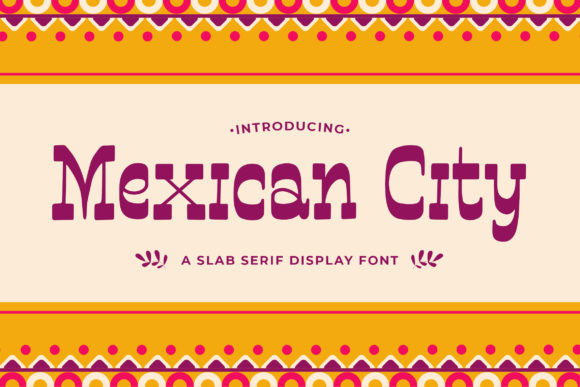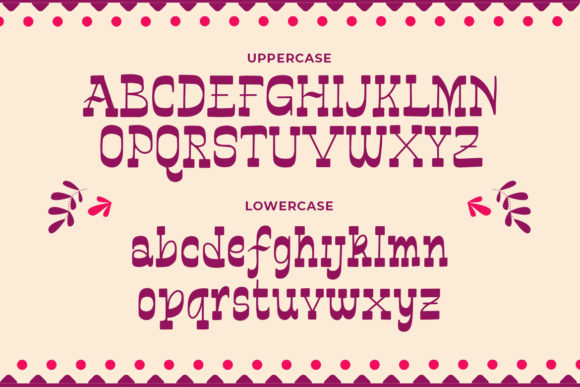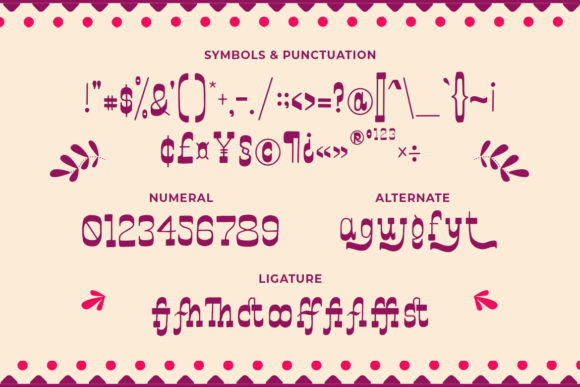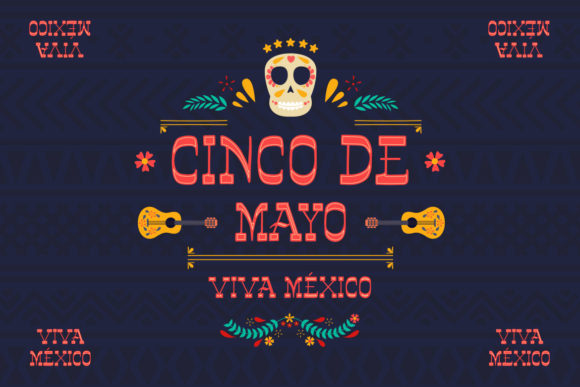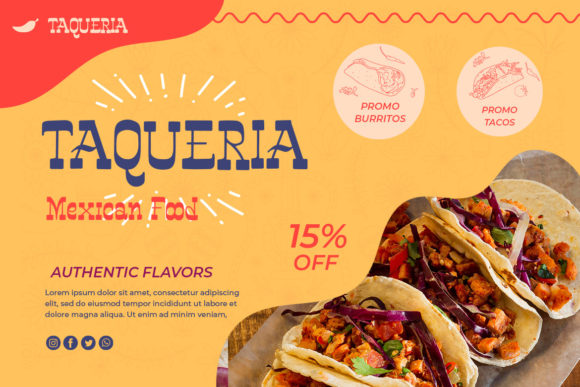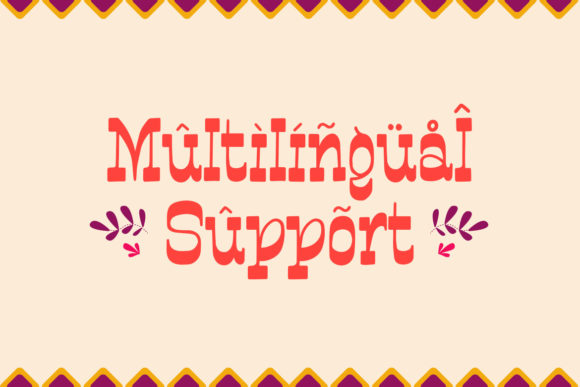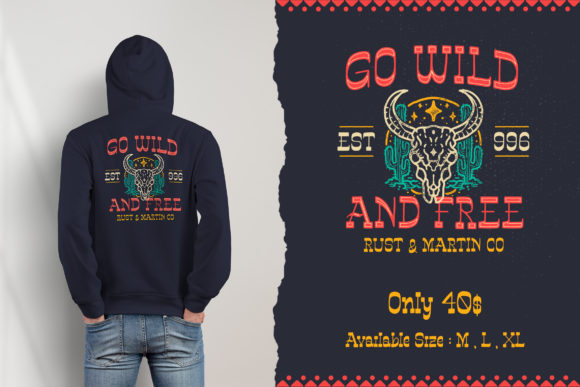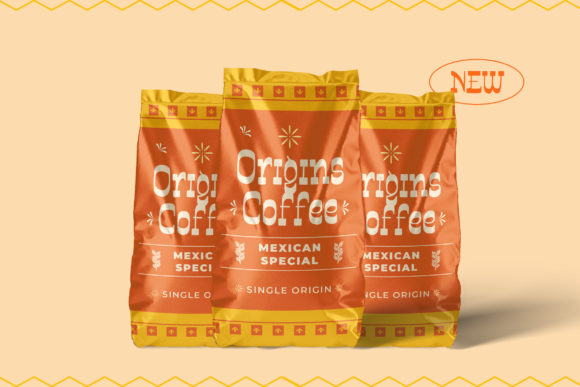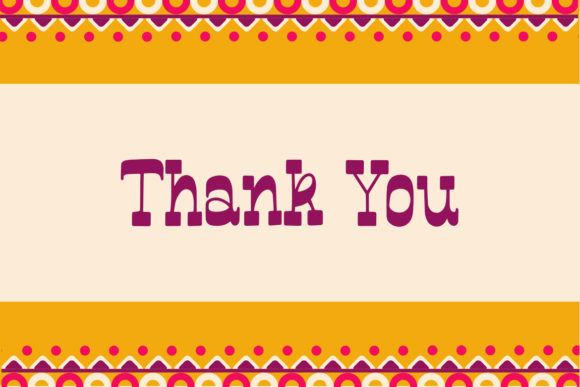
Mexican City
Mexican City: A Cool and Authentic Slab Serif Font
Mexican City is a distinctive slab serif font that combines coolness with an authentic vintage style. This versatile typeface offers designers a powerful tool for creating impactful typography across a wide range of projects, particularly suited for designs requiring a western look.
Key Features of Mexican City
• Cool Design: Features a trendy and appealing appearance that resonates with contemporary design trends.
• Authentic Slab Serif: Incorporates the characteristic thick, rectangular serifs typical of slab serif fonts.
• Vintage Style: Evokes a classic, nostalgic feel reminiscent of mid-19th-century typefaces.
• Western Aesthetic: Perfect for projects requiring a rugged yet sophisticated western look.
• Versatile Application: Suitable for both formal and casual design settings.
Font Details
Mexican City comes equipped with:
• Uppercase and lowercase letters
• Numerals and punctuation
• Symbols
• Multilingual support
Ideal Uses for Mexican City
Mexican City’s unique characteristics make it particularly well-suited for:
• Headlines and logos with a Mexican or western flair
• Vintage-inspired branding and packaging design
• Book or magazine covers with a rugged feel
• Posters and advertisements for western-themed events
• Website headers and digital content aimed at creating an authentic look
When incorporating Mexican City into your designs, consider the following tips:
• Use for both headlines and short blocks of text to showcase its vintage charm
• Experiment with different sizes to highlight the font’s unique details
• Consider pairing with complementary sans-serif fonts for body text to create contrast
• Take advantage of its versatility across various themes and styles in your projects
Mexican City is an excellent choice for designers looking to add a cool and authentic slab serif font to their typographic toolkit. Its ability to enhance various design projects makes it stand out in the world of typography. Whether you’re working on logo designs, creating layouts for western-themed projects, or developing content that requires a touch of vintage authenticity, Mexican City offers the perfect blend of coolness and western charm.
Whether you’re creating a magical and mysterious atmosphere with a western touch or aiming for a more thoughtful and introspective mood in your designs, Mexican City can adapt to your needs. Its flexibility allows it to work well in both rustic, vintage-style projects and holiday-themed designs that require a western flair. For those looking to add a touch of nostalgia to their work, this font can even complement vintage Christmas-inspired creations with a unique western twist.